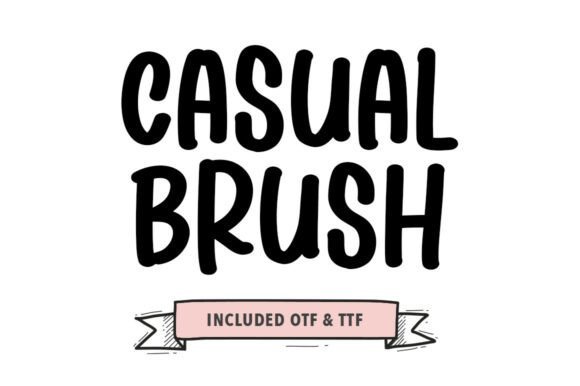
Unleash Your Creativity with the Casual Brush Font
As designers, we’ve all been there – staring at a blank canvas, waiting for inspiration to strike. It’s that moment when the perfect font can make all the difference. Imagine a font that captures the essence of hand-sketched brush lettering, with every character radiating energy and dynamism. That’s exactly what the Casual Brush Font is all about – a powerful, yet carefree font that’s designed to elevate any design aesthetic.
This font is a game-changer for designers seeking to inject a modern and relaxed feel into their work. With its handcrafted textures and organically shaped strokes, the Casual Brush Font is the perfect blend of contemporary chic and nonchalant freedom. Whether you’re creating branding materials or social content, this font is sure to lend a bold, creative, and enduring touch to your message.
Casual Brush Font Key Features
- Font Family: Casual Brush Font is a handwritten script font, ideal for creative and casual designs.
- Unique Characteristics: Features a natural, hand-drawn feel with subtle imperfections, giving it a unique and personal touch.
- Style Options: Includes multiple styles, such as regular, bold, italic, and bold italic, allowing for versatility and creativity in design.
Casual Brush Font Review
At first glance, the Casual Brush Font catches the eye with its playful, handwritten feel. ✨ The irregular strokes and organic shapes evoke a sense of informality, making it perfect for creative projects, social media, and even branding.
Here are some of the things I like about the Casual Brush Font:
- ✨ Unique and expressive design that adds personality to any project
- ✨ Versatile and works well for both digital and print applications
- ✨ High-quality glyphs and smooth rendering make it suitable for large-scale use
- ⚠️ May not be suitable for formal or professional projects, as it can come across as unpolished
- ⚠️ Limited language support, which may be a concern for multilingual projects
- ⚠️ Some characters may be difficult to read at smaller font sizes
Overall, the Casual Brush Font is a great choice for designers who want to add a touch of personality to their work. While it may not be suitable for every project, its unique design and high-quality rendering make it a valuable addition to any font collection.
Tips for Getting the Most Out of Casual Brush Font
Use Casual Brush Font for casual, handwritten text, such as:
- Signatures
- Quotes
- Headlines
- Labels
Alternatives to Casual Brush Font